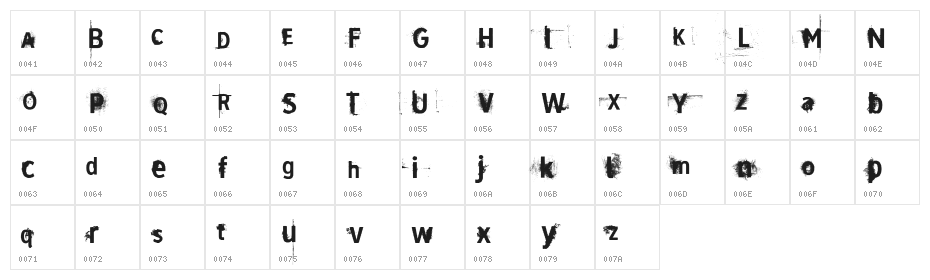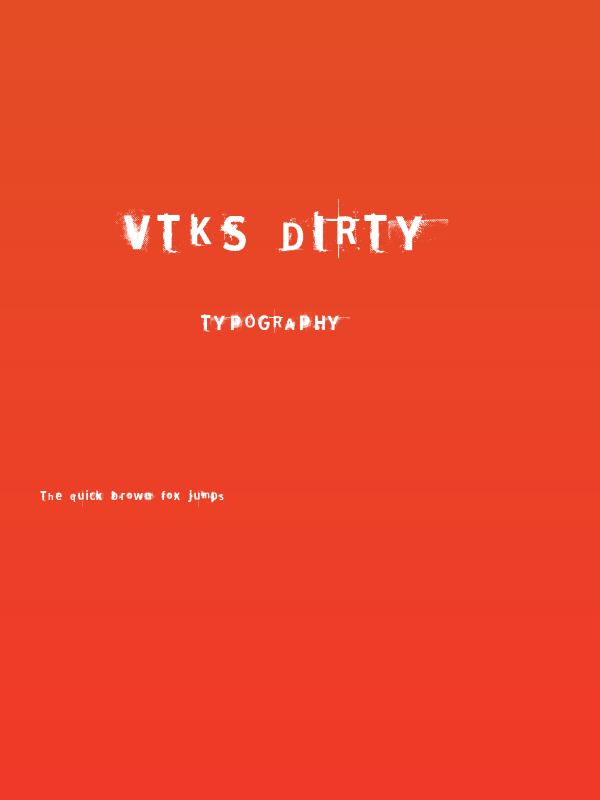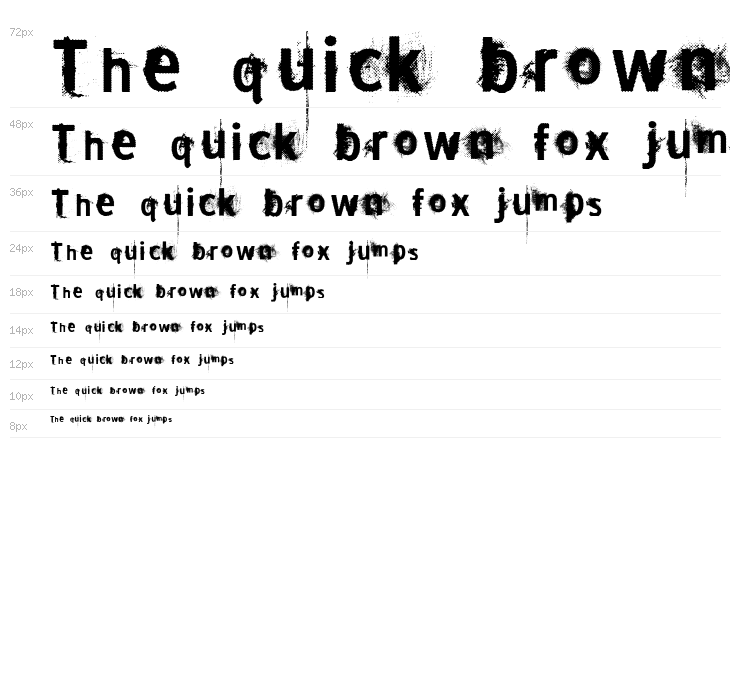
vtks dirty 2 Font
vtks dirty 2 Description
This font features a distressed and grungy aesthetic, characterized by rough edges and a textured appearance that mimics the look of worn or eroded surfaces. The letters have a bold presence with varying levels of opacity and irregularities, giving them a unique, handcrafted feel. The uppercase and lowercase letters maintain a consistent style, with some characters appearing more fragmented than others. This font's distinctive style makes it ideal for projects that require a raw, edgy look, such as music album covers, posters, or urban-themed designs.
| Overall Style | Grunge, Distressed |
| Proposed Projects | Ideal for music album covers, posters, urban-themed designs, and any project needing a raw, edgy aesthetic. |